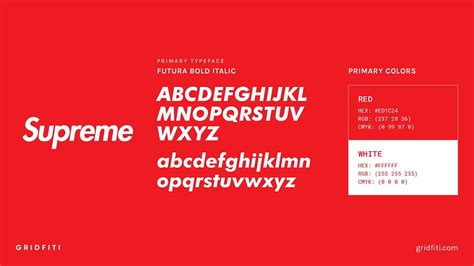
Supreme Logo Font. You can download or create text graphics and. Web supreme font is a clothing brand that uses futura bold italic font for its logotype.
Web supreme font is a clothing brand that uses futura bold italic font for its logotype. You can download or create text graphics and.
Web supreme font is a clothing brand that uses futura bold italic font for its logotype. Web supreme font is a clothing brand that uses futura bold italic font for its logotype. You can download or create text graphics and.